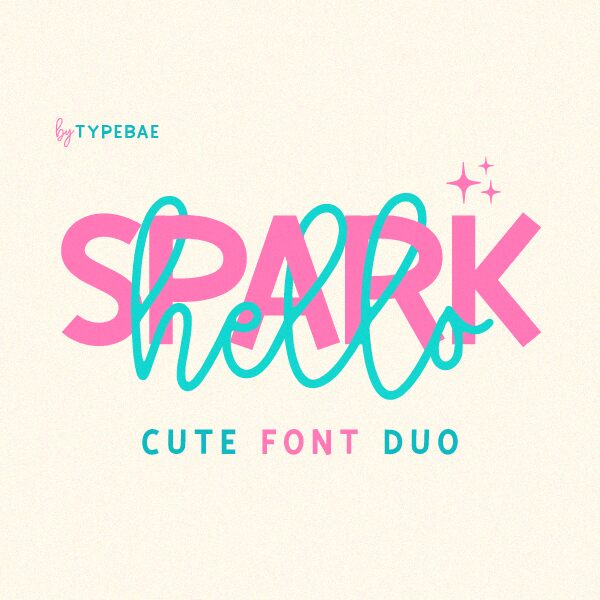
Hello Spark Sans
Hello Spark Sans font is a free sans-serif typeface that combines cartoonish display elements with geometric shapes. It brings a modern look to designs, mostly due to its clean and minimalistic style. Typebae Foundry included both professional and playful notes within this font, making it an easy choice for a variety of occasions and design purposes.